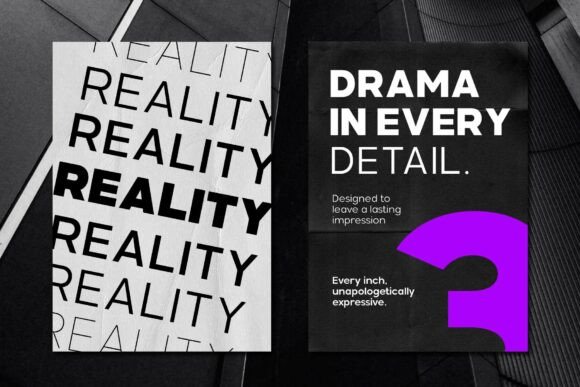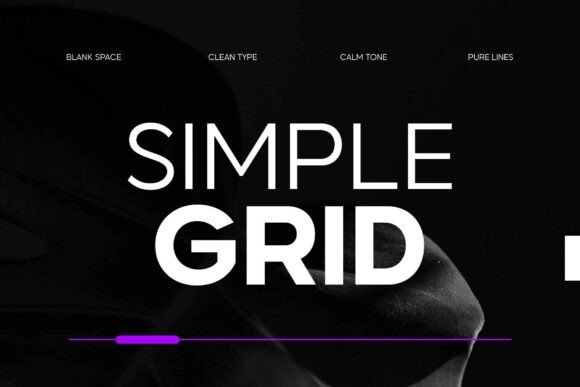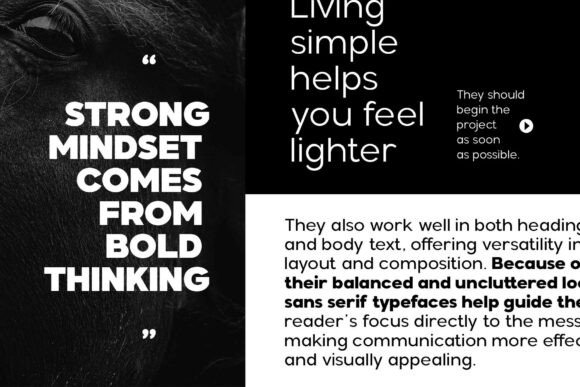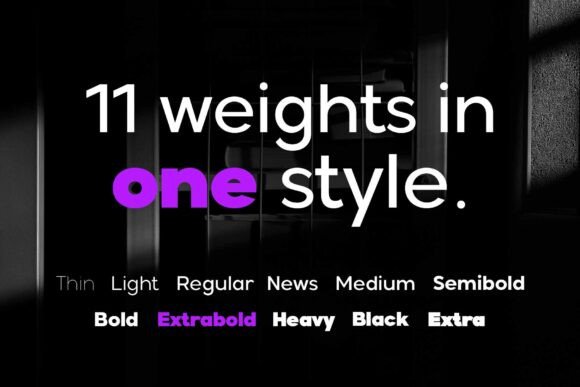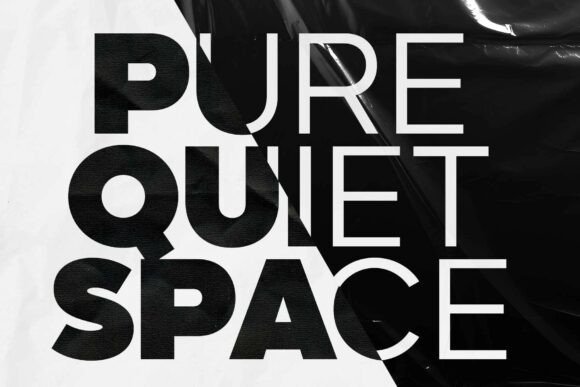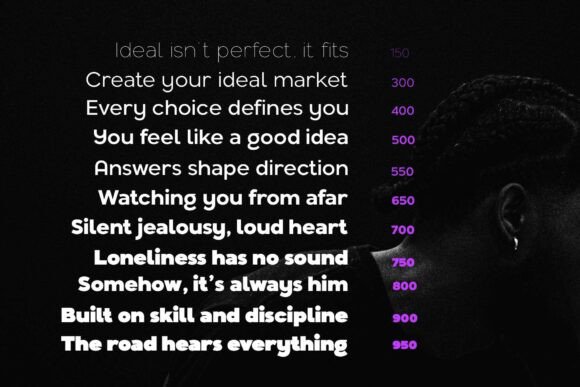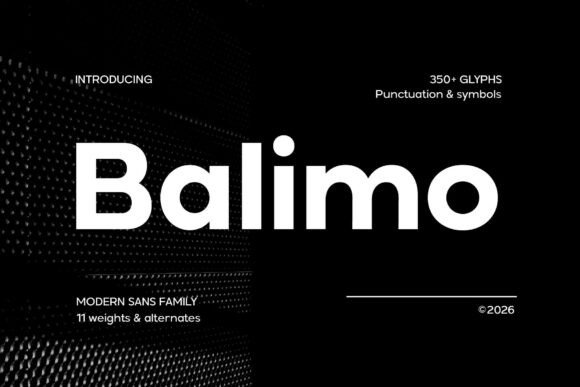
Introducing Balimo Font: The Ultimate Modern Sans Serif Typeface
In the world of typography, a font can make or break a design. With so many options available, it’s essential to choose a typeface that not only looks great but also communicates effectively. This is where Balimo Font comes in – a modern sans serif typeface designed to deliver clarity, balance, and a strong visual presence across any design.
Clean Geometric Structure and Refined Proportions
Balimo’s design is built on a clean geometric structure and refined proportions, making it a perfect blend of modernity and sophistication. The font’s sleek lines and curves create a contemporary tone that feels both minimal and expressive. This unique combination allows Balimo to work effortlessly across various design applications, from bold headlines to readable body text.
One of the standout features of Balimo is its versatility. This font is designed to adapt seamlessly to different design contexts, including branding, editorial, UI/UX, and marketing. Whether you’re creating a logo, heading, or body text, Balimo ensures clear communication and a polished appearance in any layout.
Consistent Rhythm and Spacing
Each character in Balimo is crafted with consistent rhythm and spacing, which is essential for creating a professional and clean design. The font’s carefully considered letterforms ensure that your message is conveyed with clarity and precision, making it perfect for designers and crafters who value attention to detail.
Key Features of Balimo Font
• Modern sans serif typeface: Balimo boasts a fresh and contemporary design that’s perfect for modern designs.
• Clean geometric structure: The font’s geometric structure provides a solid foundation for creating clean and professional designs.
• Refined proportions: Balimo’s refined proportions ensure that the font works well across different design applications.
• Consistent rhythm and spacing: The font’s consistent rhythm and spacing create a polished appearance in any layout.
• Versatile: Balimo adapts seamlessly to different design contexts, including branding, editorial, UI/UX, and marketing.
Why Choose Balimo Font?
With so many fonts available, why choose Balimo? Here are just a few reasons:
• Legibility: Balimo’s clean design and consistent rhythm make it easy to read, even at small font sizes.
• Flexibility: The font’s versatility makes it perfect for a wide range of design applications.
• Professional look: Balimo’s polished appearance ensures that your designs look professional and clean.
Balimo Font is a modern sans serif typeface that’s perfect for designers and crafters looking for a clean, versatile, and professional font. With its clean geometric structure, refined proportions, and consistent rhythm and spacing, Balimo ensures clear communication and a polished appearance in any layout. Whether you’re creating a logo, heading, or body text, Balimo is the perfect choice for your next design project.